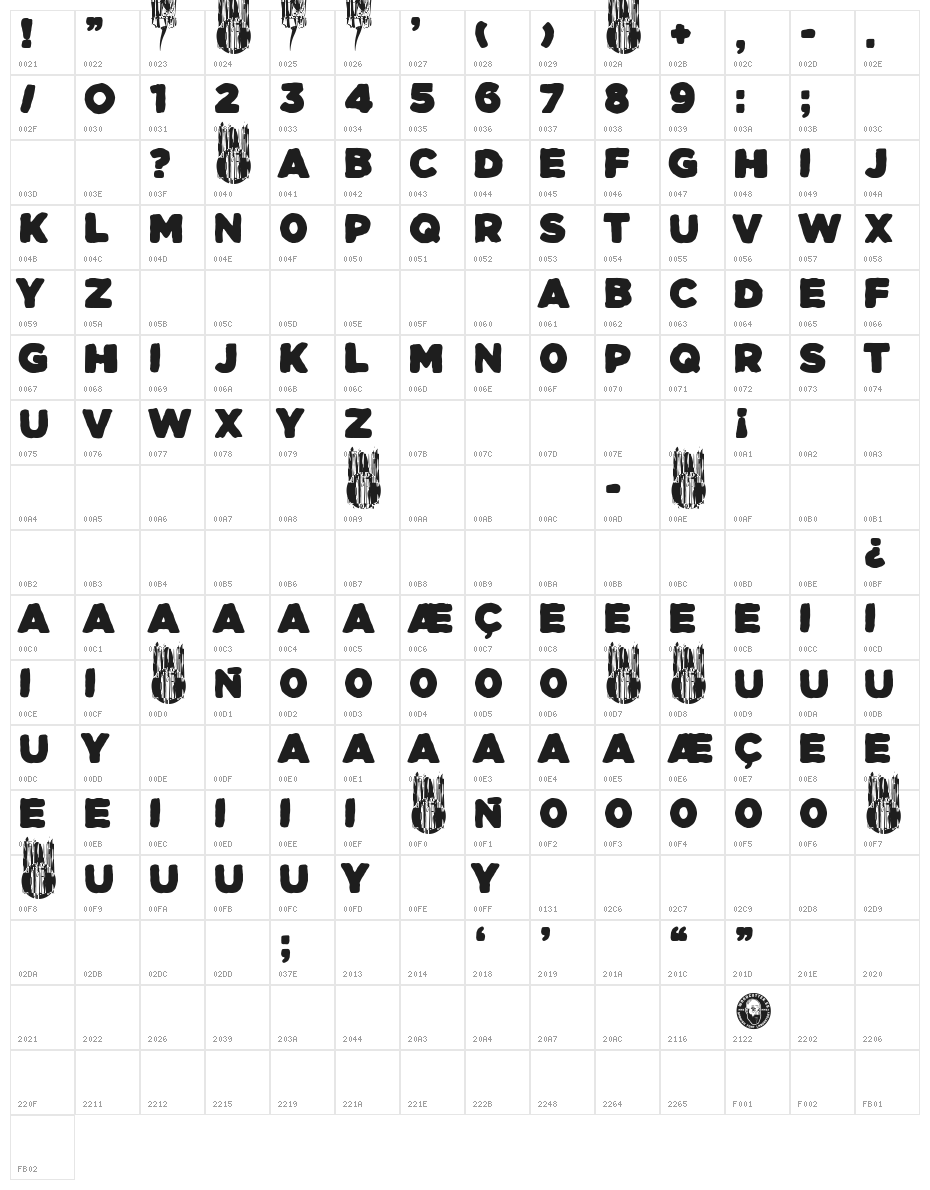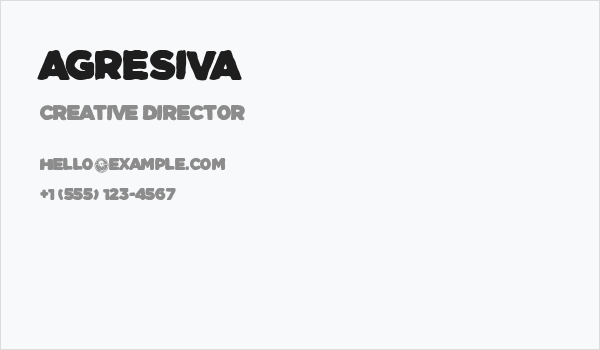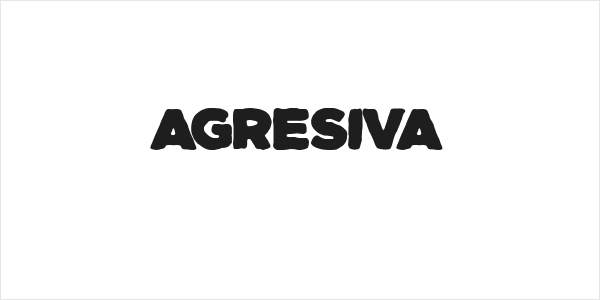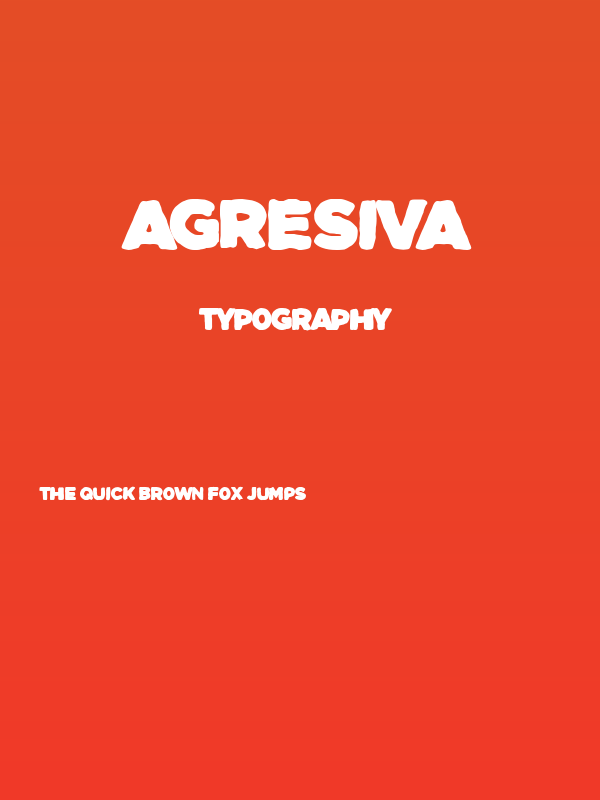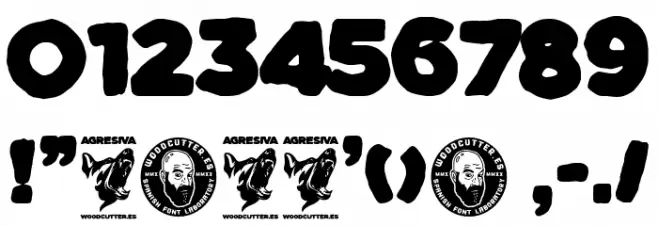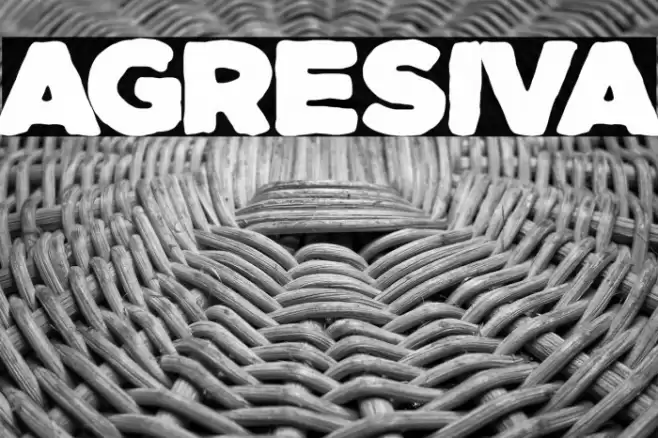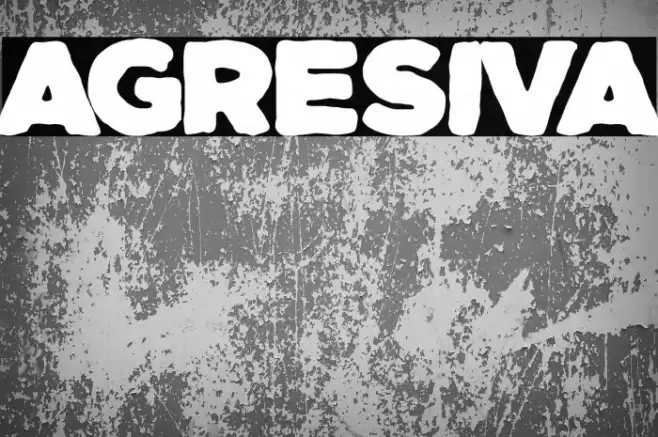
This bold and impactful font features thick, rounded strokes that give it a strong and assertive presence. The characters are uniformly wide, with a playful yet robust design that makes it stand out. Its boldness is consistent across both uppercase and lowercase letters, as well as numbers and special characters. The font's style is reminiscent of graffiti or street art, with a modern twist that makes it suitable for contemporary designs. The rounded edges soften the overall look, adding a touch of approachability to its otherwise aggressive appearance.